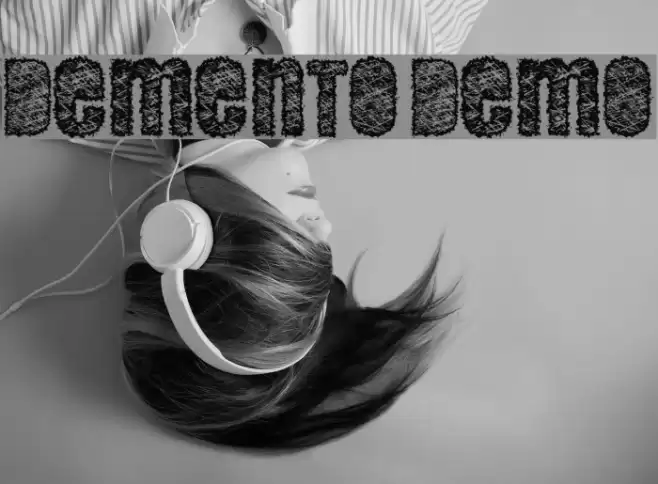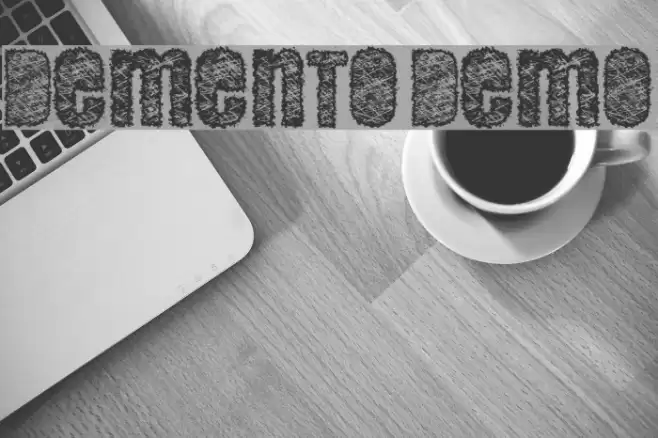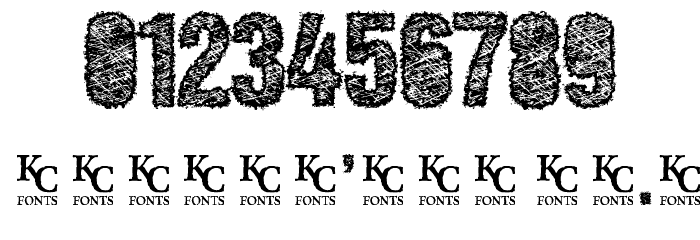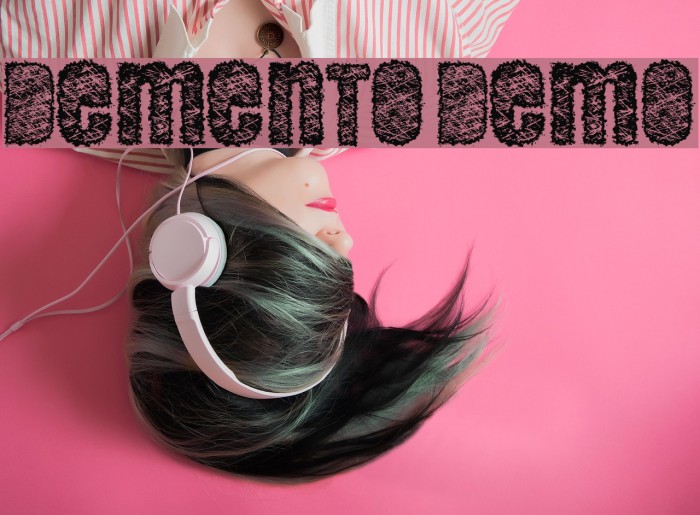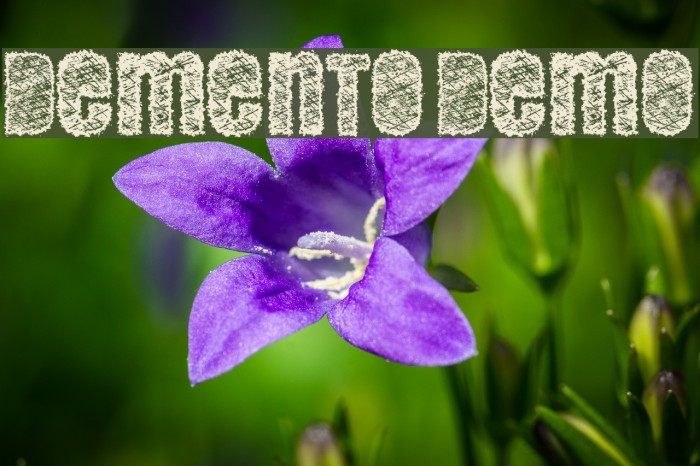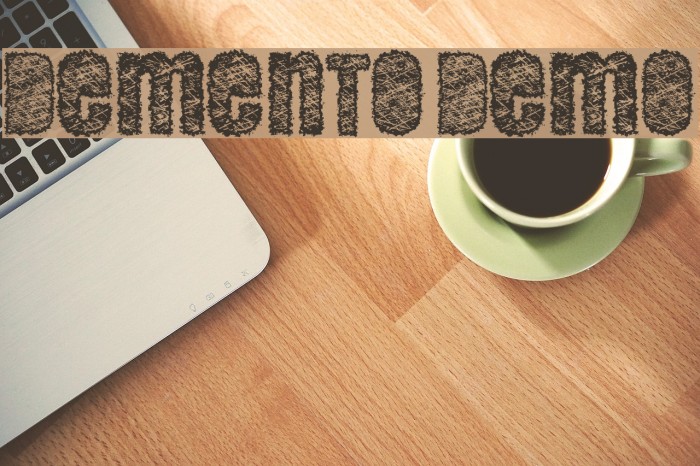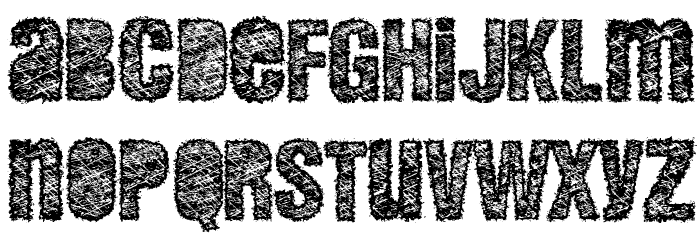
DEMENTO DEMO Font
DEMENTO DEMO Description
This font features a bold, textured style that resembles a chalk or crayon drawing. Each character is filled with a rough, hand-drawn texture, giving it a unique and artistic appearance. The letters are uppercase and maintain a consistent height, with a slightly condensed width. The numbers and special characters follow the same textured pattern, ensuring a cohesive look across all elements. This font's design is both eye-catching and playful, making it suitable for creative projects that require a distinctive and informal touch.
A bold, textured font with a hand-drawn, chalk-like appearance from Uncategorized fonts.
- Proposed Projects: Ideal for posters, children's book covers, art projects, and playful branding.
- Overall Style: Artistic, Playful
- Use Case: Headlines, Logos, Creative projects